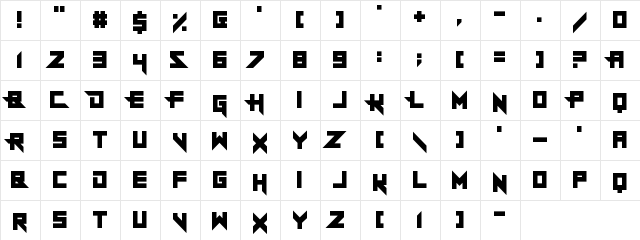
Sheeping Dogs Regular
| Designer | NAL |
Sheeping Dogs is a composed and adaptable typeface that performs quietly and consistently across a wide range of design contexts.